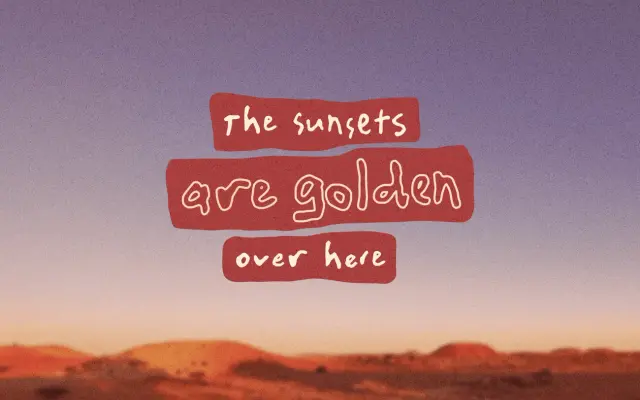
Prickly Pear
A rough handwritten script scrawled in a moving car crossing the Simpson Desert, with 160-plus ligatures to keep the letterforms unpredictably varied.
Created on a road trip through the Australian outback, the typeface mimics the uneven quality of pen-on-paper writing done in motion. Over 160 ligatures distribute variation across the letterforms so that repeated characters avoid mechanical repetition. It covers uppercase, lowercase and multilingual Latin characters.
An informal, irregular handwritten script with extensive ligatures designed to mimic natural pen scrawl; falls squarely into casual handwritten script territory.